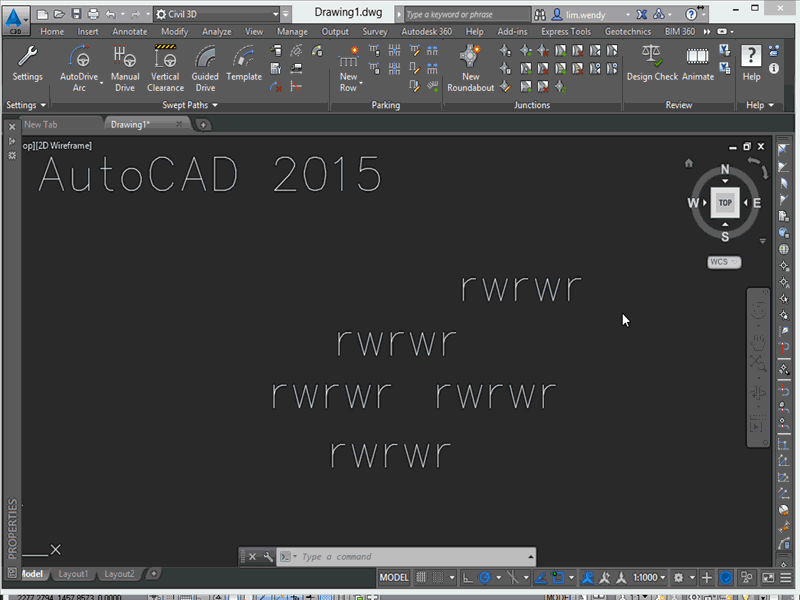
Double Line Font In Autocad. The result is a bold, bumptious typeface with a stolidly calm disposition. Perhatikan command line di bawah area kerja autocad pada specify start point or [justification/scale/style]:
In autocad, create two text styles. All the letters of a ttf font is created with filled closed surfaces, even if it look like a line. On either the text editor contextual tab or text formatting toolbar, make format changes as follows:
Accept The Defaults For All The Other Settings.
Move the cursor over the right boundary of the text frame until the cursor changes to a double arrow. In this example, autocad is directed to use the txt. Below is a snapshot from autocad help.
You May Want To Place A Line Of Text With Mtext First And Use The Distance Command To Check The Character Height.
Perhatikan Command Line Di Bawah Area Kerja Autocad Pada Specify Start Point Or [Justification/Scale/Style]:
Silakan Klik Kanan Seperti Pada Gambar.